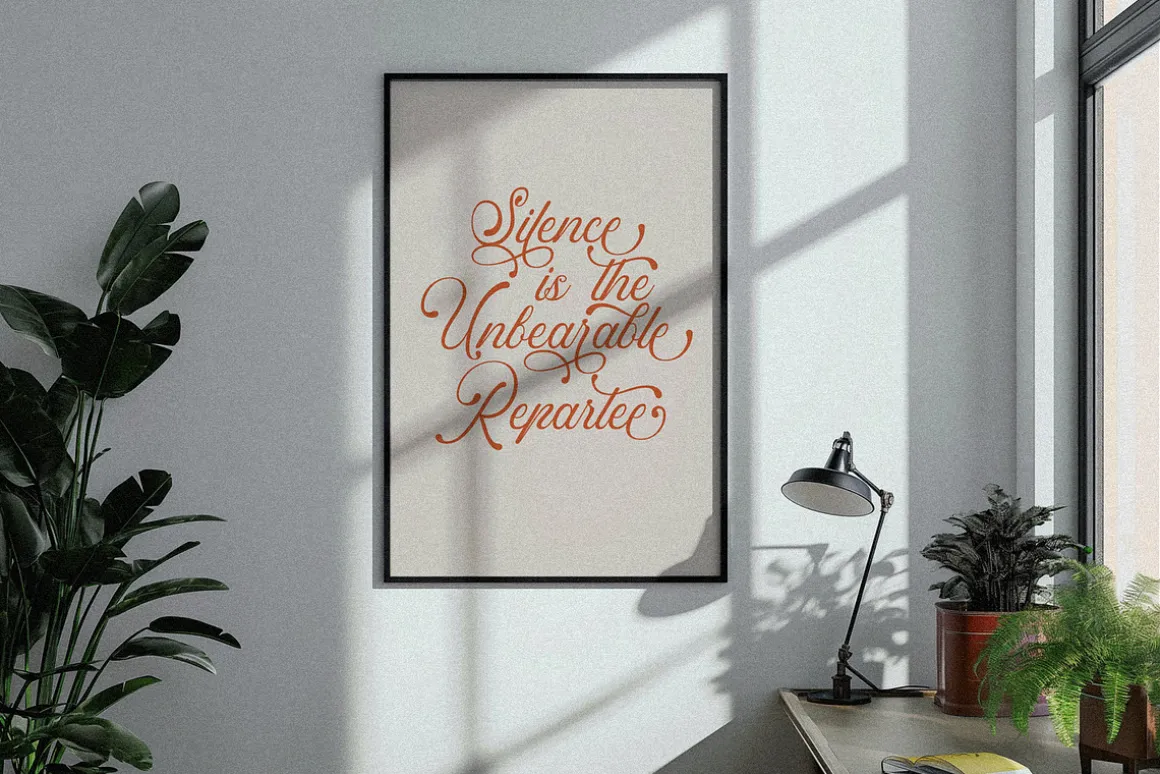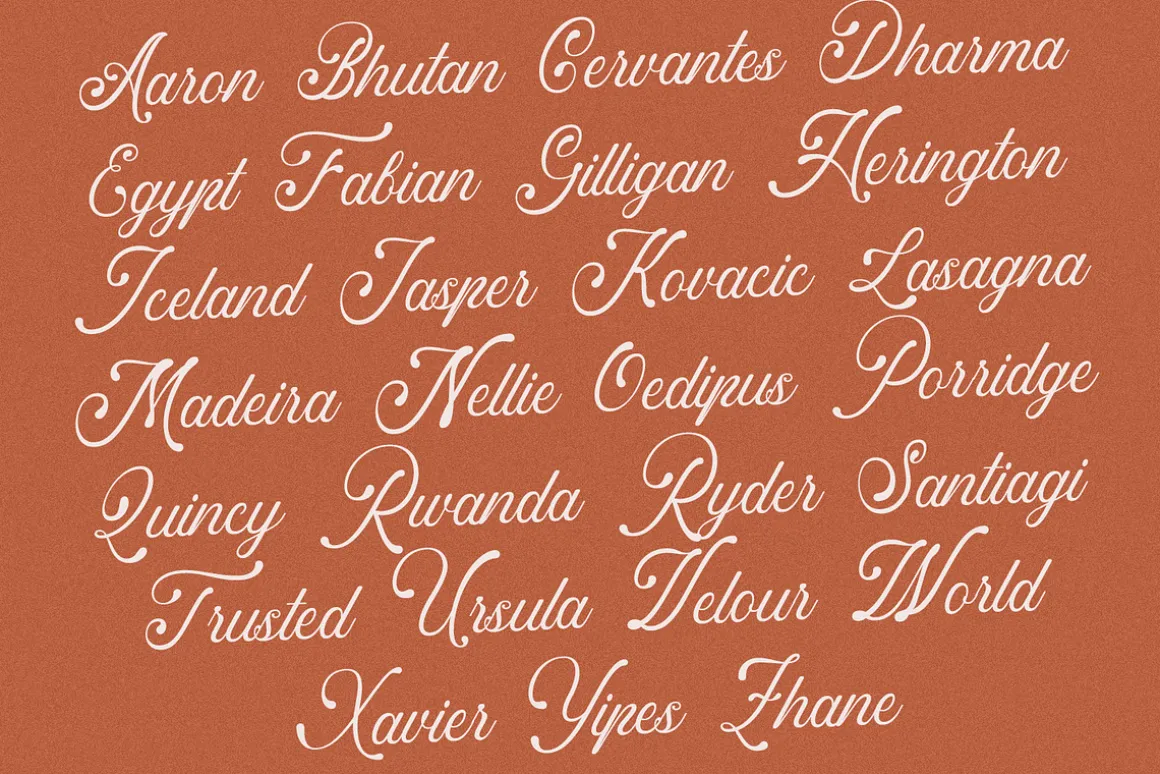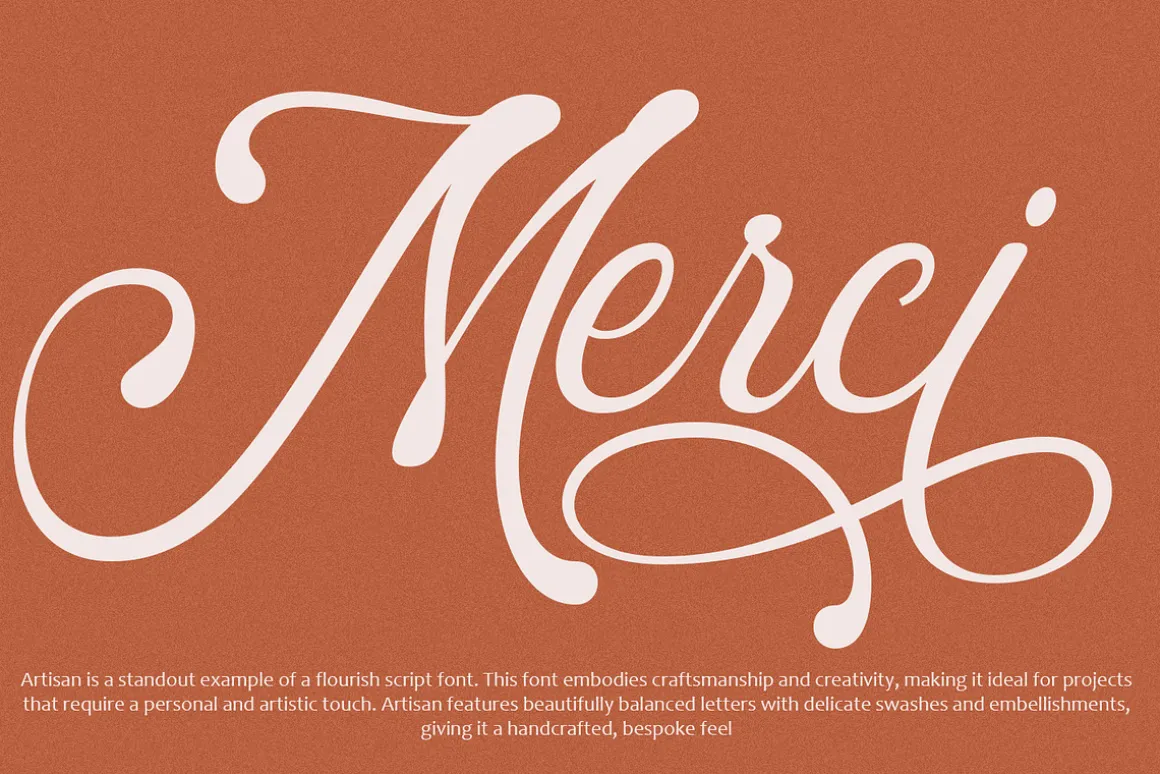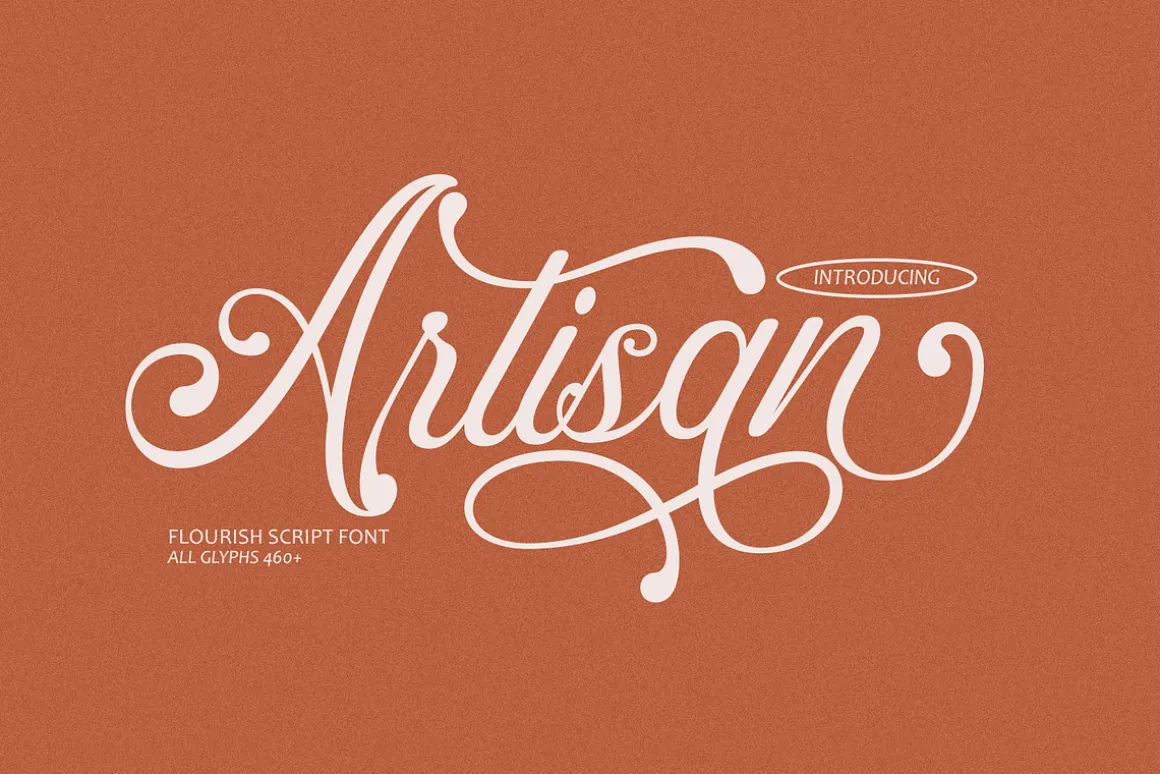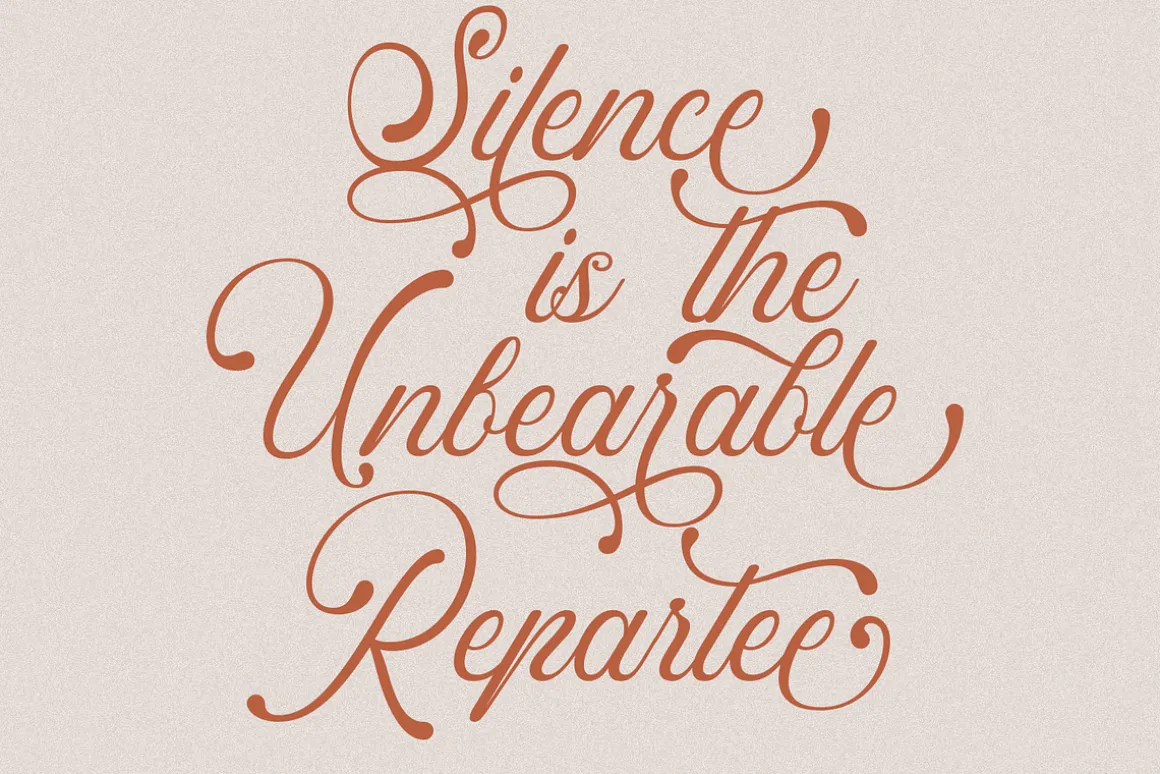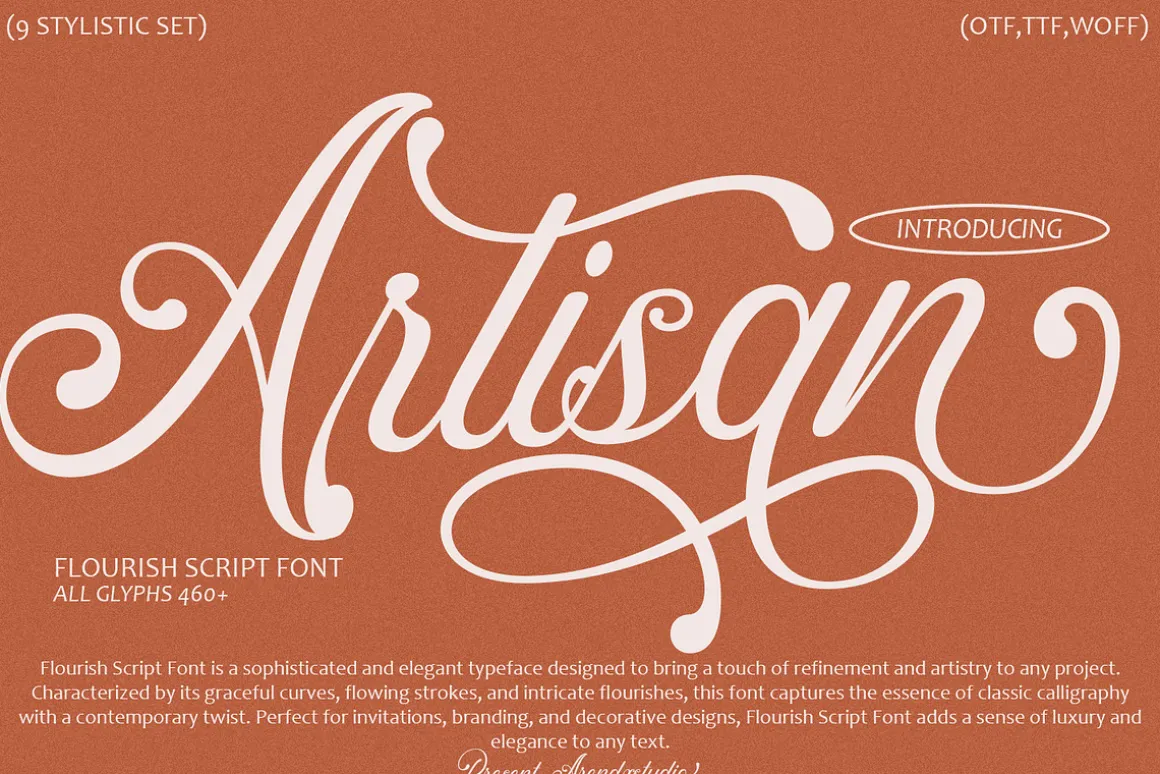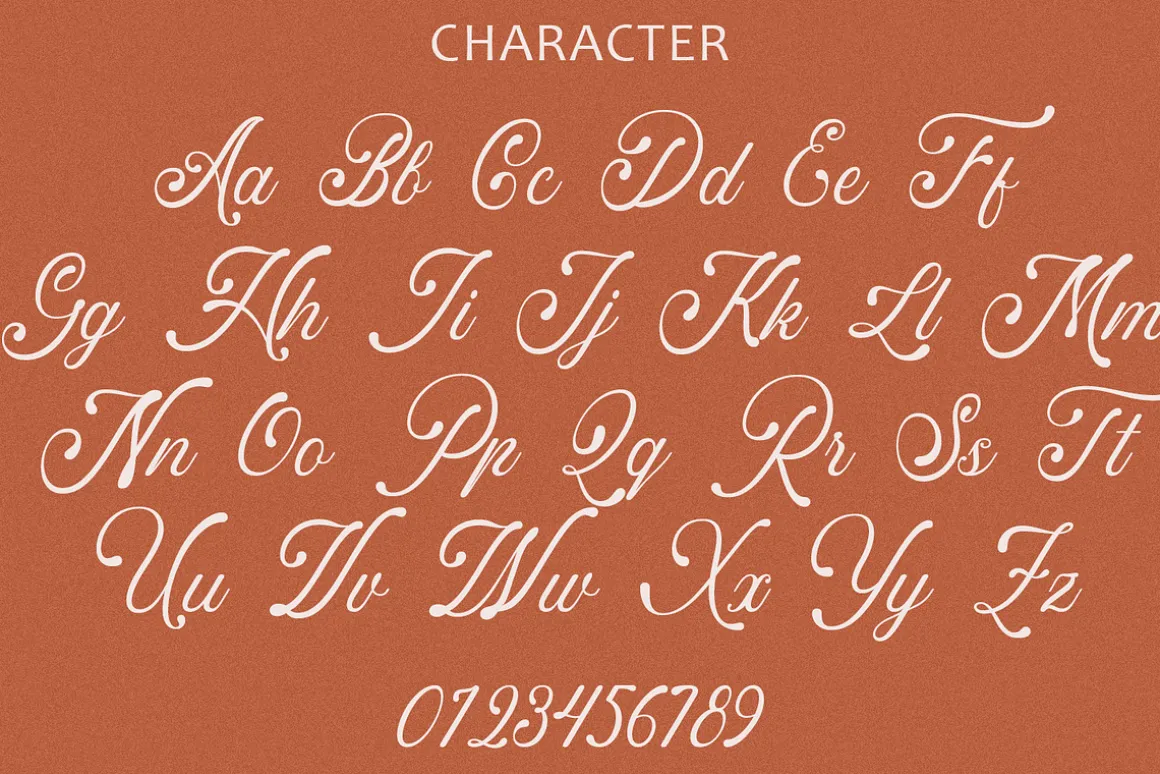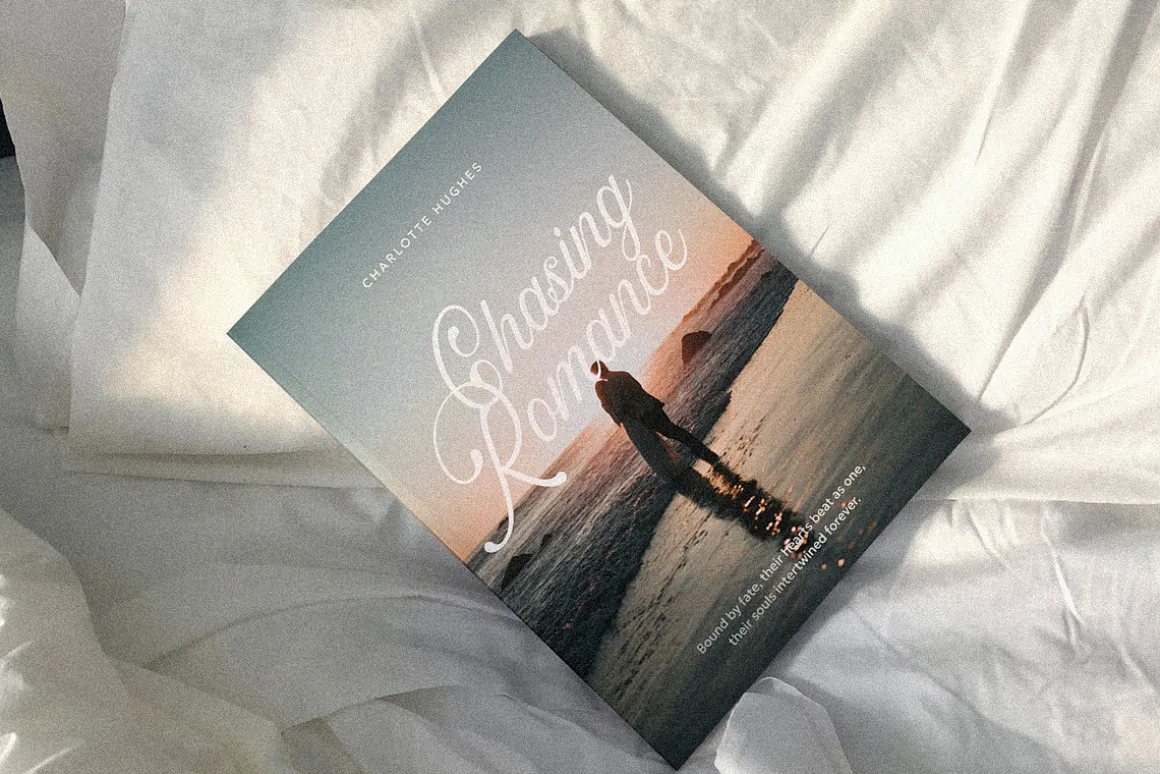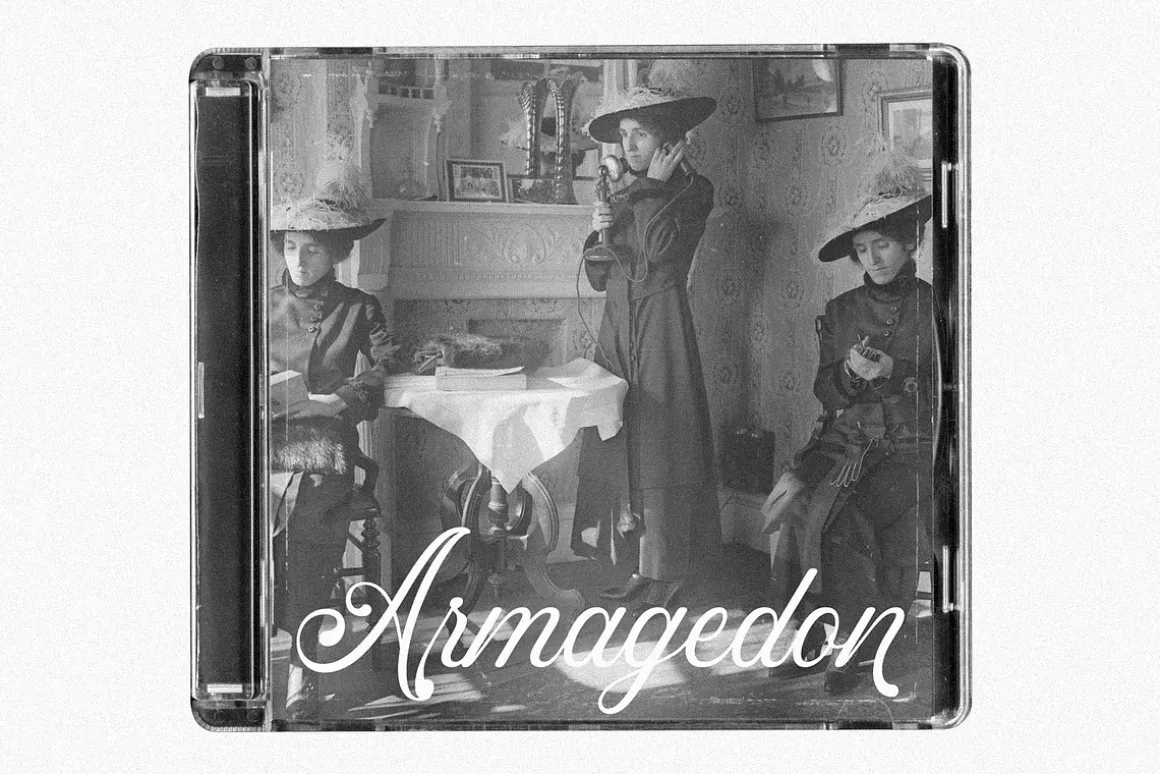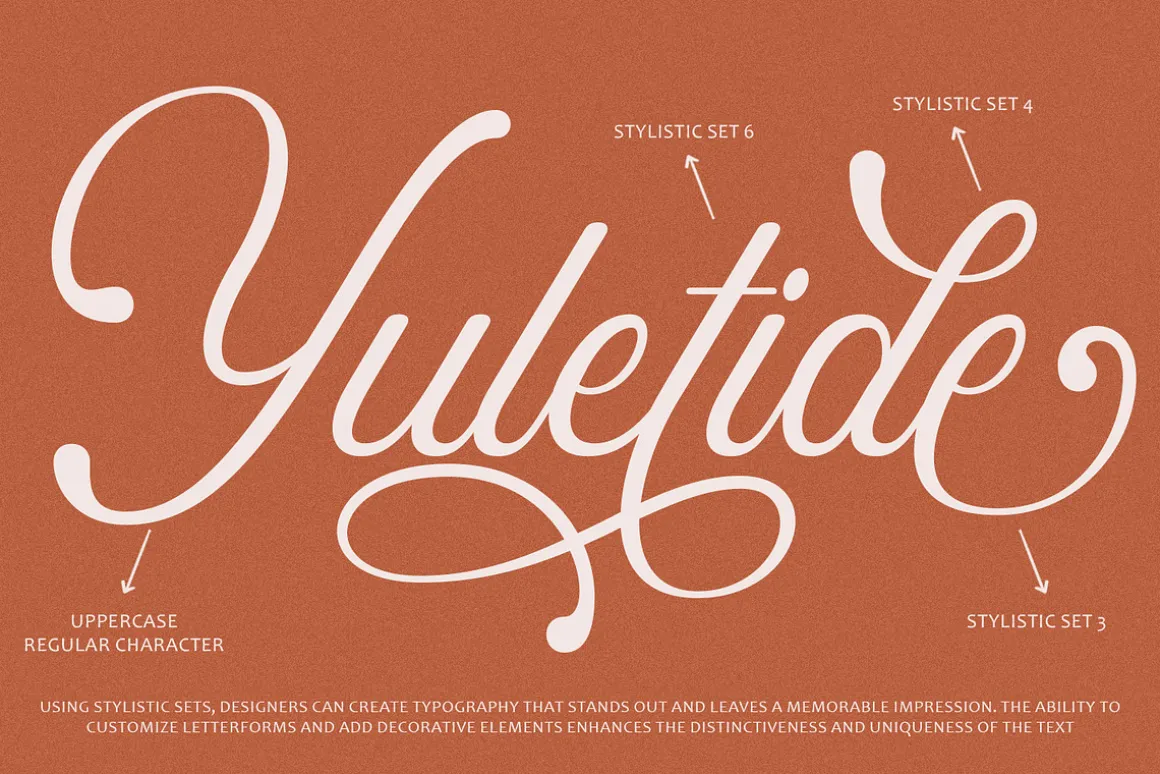
Flourish Script Font is a sophisticated and elegant typeface designed to bring a touch of refinement and artistry to any project. Characterized by its graceful curves, flowing strokes, and intricate flourishes, this font captures the essence of classic calligraphy with a contemporary twist. Perfect for invitations, branding, and decorative designs, Flourish Script Font adds a sense of luxury and elegance to any text.
Artisan – Flourish Script Font is a standout example of a flourish script font. This font embodies craftsmanship and creativity, making it ideal for projects that require a personal and artistic touch. Artisan features beautifully balanced letters with delicate swashes and embellishments, giving it a handcrafted, bespoke feel. Its versatility allows it to be used across various mediums, from digital designs to printed materials, ensuring that your message is delivered with style and sophistication. Whether you’re designing for weddings, logos, or high-end packaging, Artisan adds a timeless charm that resonates with elegance and finesse.
Uppercase and lowercase characters
Numerals and Punctuation (OpenType Standard)
Accents (Supports Multilingual Characters)
Stylistic set
PUA Encoding